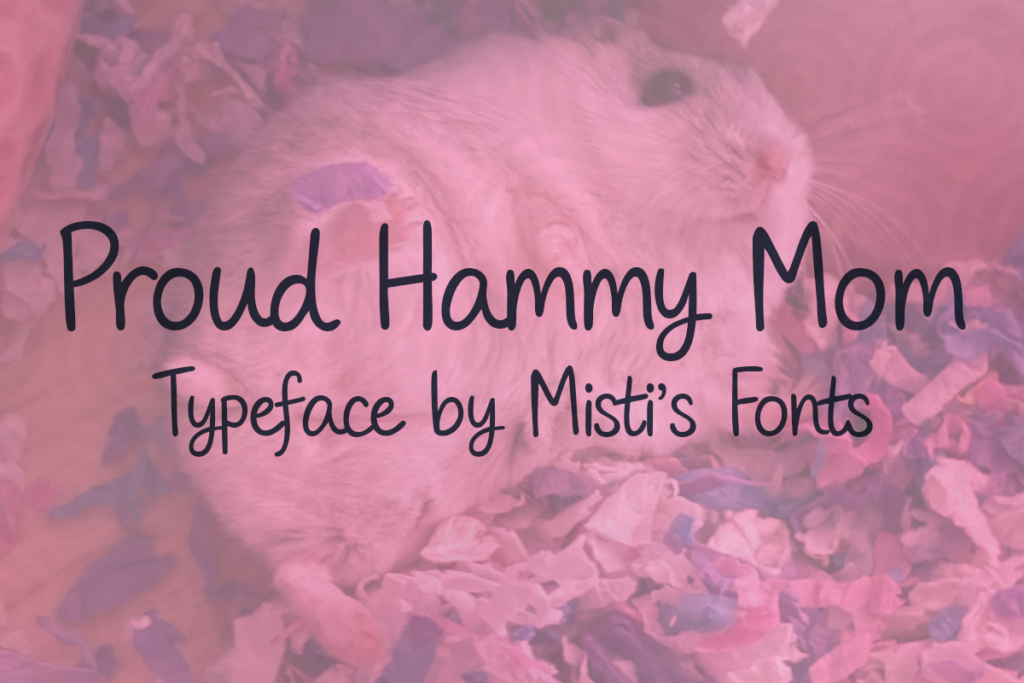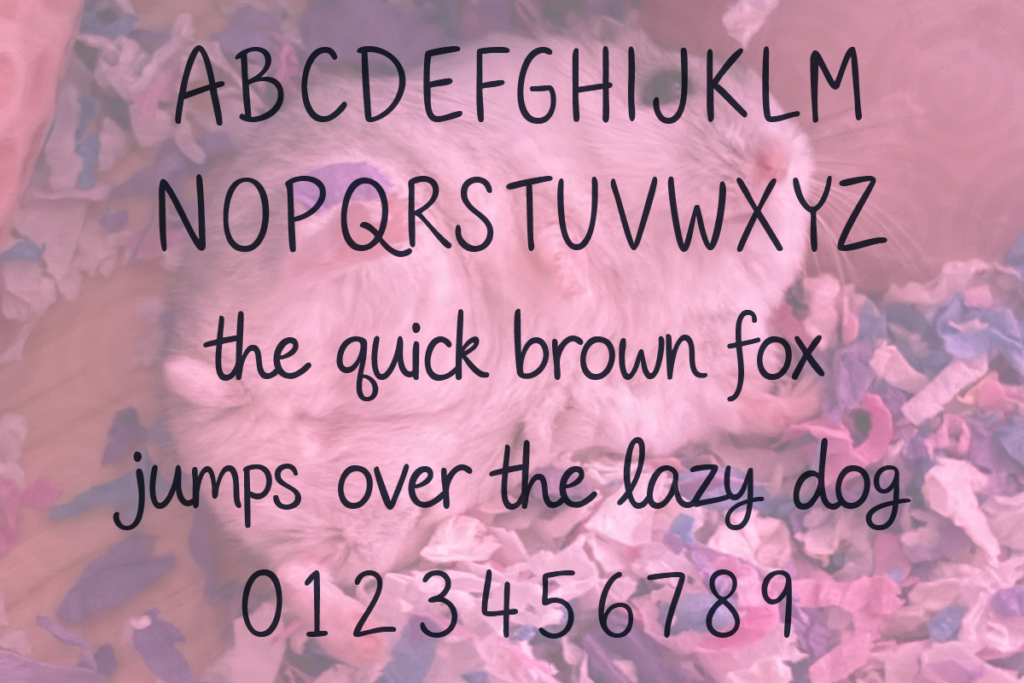
Introducing “Proud Hammy Mom”, an elegant and charming semi-cursive font, inspired by handwritten letters. Decked with a unique cuteness, this typeface mimics the beauty of handwriting that’s both natural and stylish. Irresistible and whimsical, “Proud Hammy Mom” will surely add a delightful touch to your creative designs, etching a warmth that resonates with your audience. It celebrates the perfectly imperfect nuance of handwritten typography, adding personality to every line, every curve, every letter. Bring your projects to life with the distinctive charm of “Proud Hammy Mom”!